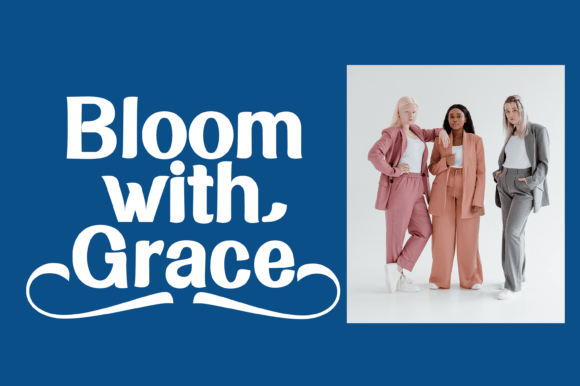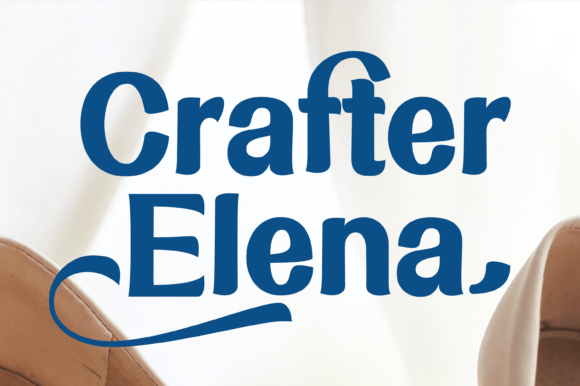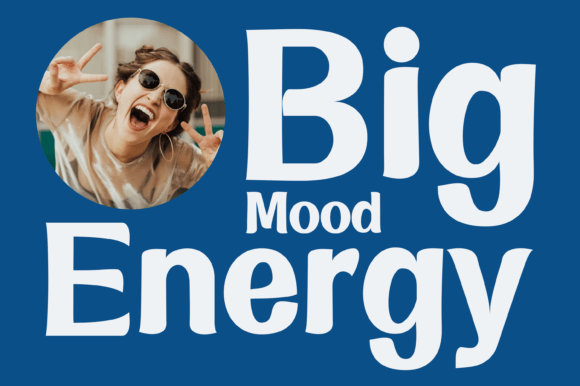
Introduction to Royali Font
Have you ever been stuck on a creative project, staring at a blank page, and desperately searching for the perfect font to elevate your design? It’s a feeling many designers know all too well. But what if I told you that there’s a font that can transport your brand to new heights, exuding sophistication and originality in equal measure?
Enter Royali Font, a modern serif display font that’s about to become your new go-to design resource. With its bold, elegant twist and sweeping tails, this font is a game-changer for designers seeking a high-quality solution that stands out in both digital and print design. Whether you’re working on a luxury branding project or a contemporary editorial piece, Royali Font is the perfect companion to take your creative project to the next level.
Key Features of Royali Font
- High-quality design resource ideal for creative projects, with a unique and elegant style.
- Transparent background and versatile design make it suitable for use on a variety of backgrounds and surfaces.
- Font size: 200-400 points, with a resolution of 300 DPI for crisp and clear display.
- Unique characteristics include intricate details, ornate patterns, and a mix of modern and vintage elements, perfect for adding a touch of sophistication to your design.
- Comes with a comprehensive character set, including uppercase and lowercase letters, numbers, and punctuation marks, making it a reliable choice for professional use.
- Perfect for designers, artists, and creatives working on high-end projects, such as branding, packaging, and editorial design.
Honest Review: Royali Font
As a designer, I’m always on the lookout for high-quality design resources that can elevate my creative projects. The Royali Font is one such resource that caught my attention, and I’m excited to share my honest review with you.
- ✨ Elegant and sophisticated design aesthetic that makes it perfect for luxury and high-end branding.
- ✨ Highly legible and clear typography that works well in both digital and print formats.
- ✨ Transparent background option that allows for seamless integration into any design project.
However, I do have a few limitations to mention:
- ⚠️ Limited font styles and weights available, which might not be ideal for designers who require a wider range of options.
- ⚠️ Not as versatile as some other fonts on the market, making it less suitable for certain design projects.
Overall, I think the Royali Font is a great addition to any designer’s toolkit, especially for those who specialize in luxury and high-end branding. While it may have some limitations, its elegant design aesthetic and clear typography make it a valuable resource for creative projects.
Tips for Getting the Most Out of Royali Font
To get the most out of the Royali Font, use it in combination with other high-quality design resources, such as graphics and images. You can also experiment with different font sizes and styles to create a unique and engaging design. With a free download available, you can try out the Royali Font on your next creative project and see the difference it can make.
The Royali Font is perfect for a variety of creative projects, including social media graphics, marketing materials, and presentations. Its high-quality design and transparent background make it a versatile resource that can be used in a variety of contexts.
Is the Royali Font suitable for large-scale designs?
The Royali Font is designed to be highly scalable, making it suitable for large-scale designs, including billboards, posters, and other big-format prints. However, for extreme large-scale designs, please ensure that the font is properly vectorized and optimized for the specific design requirements.